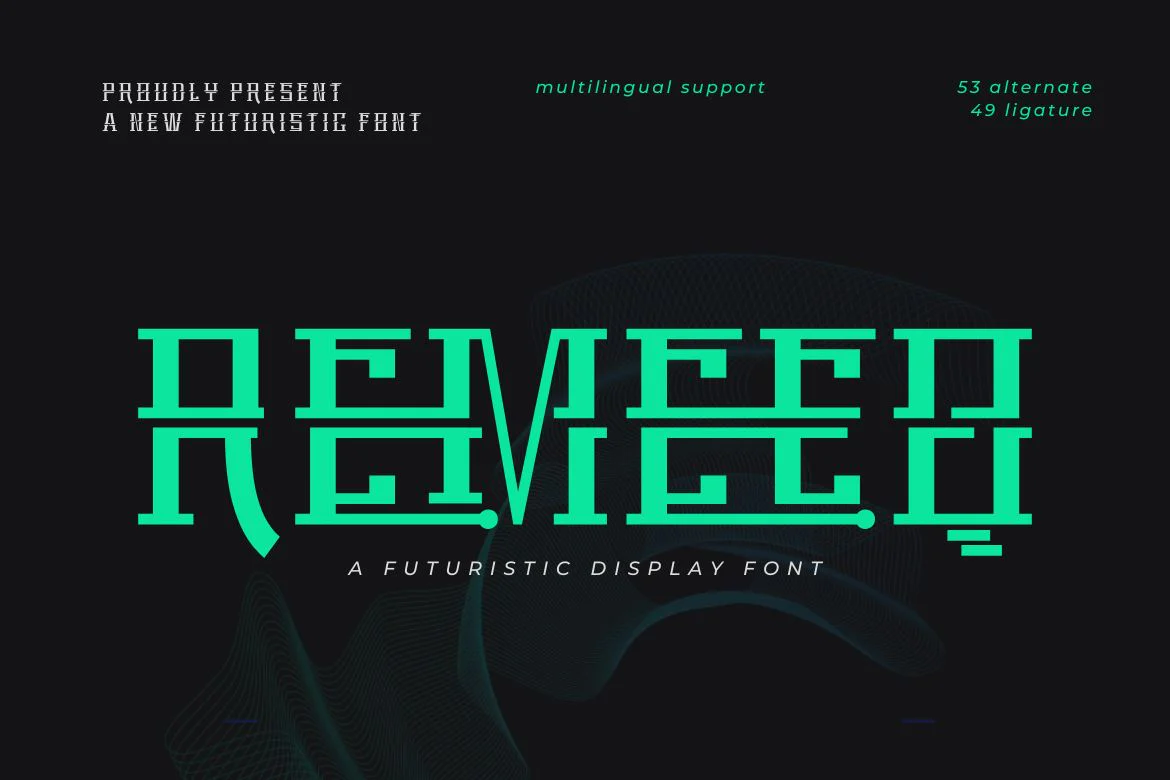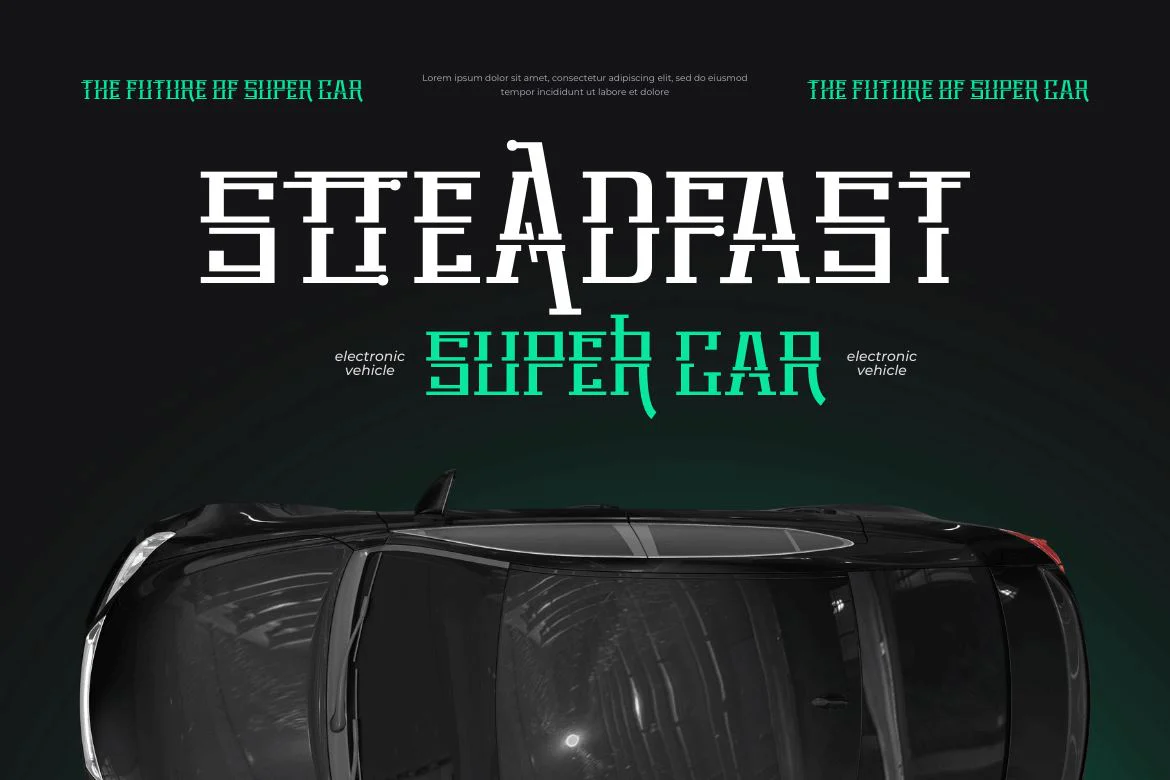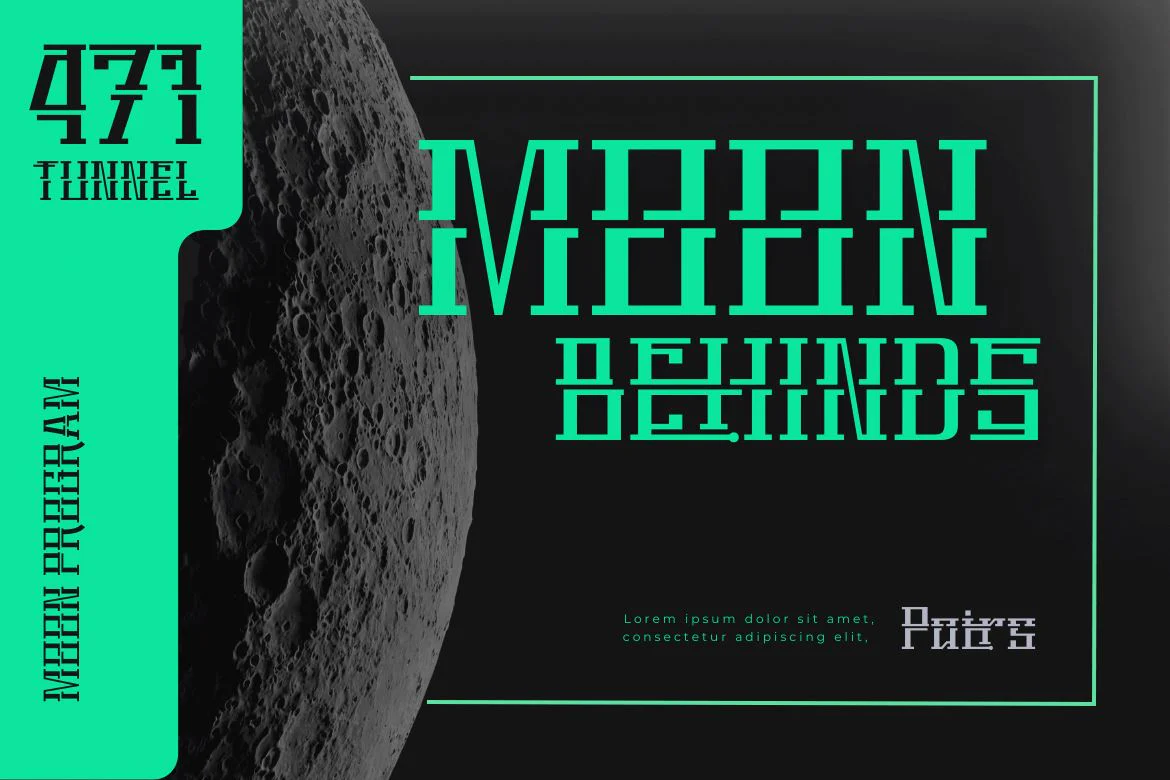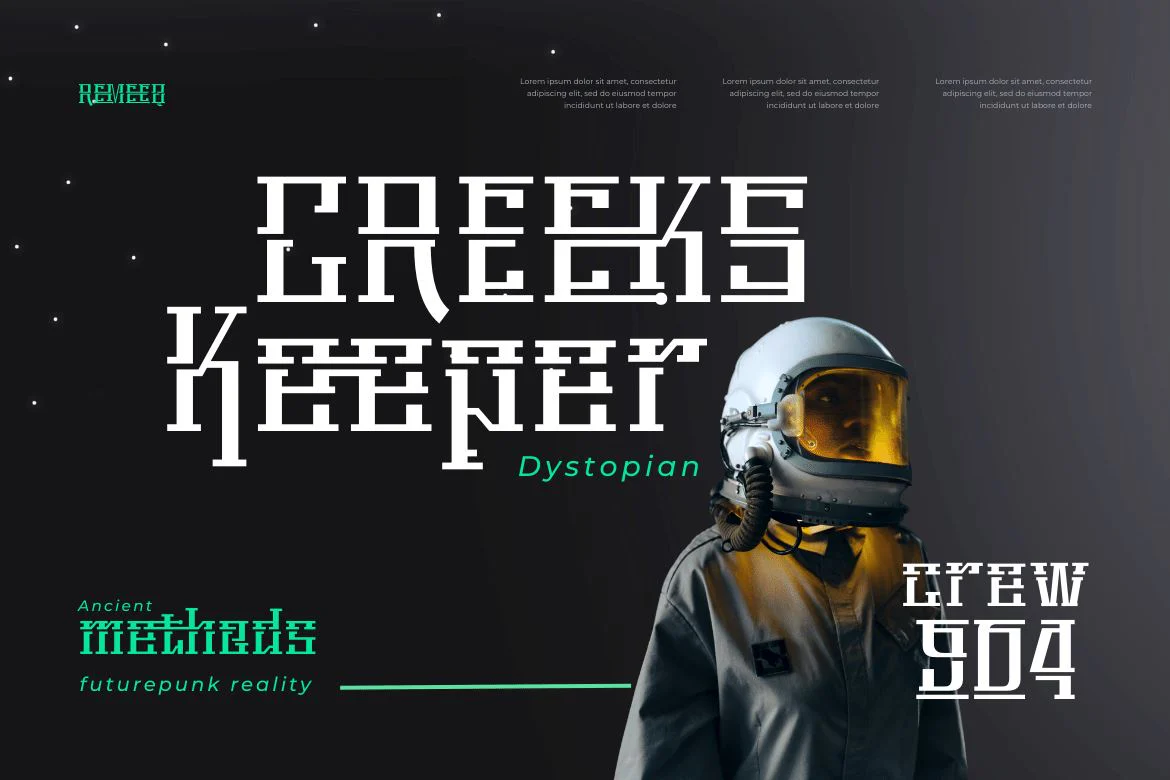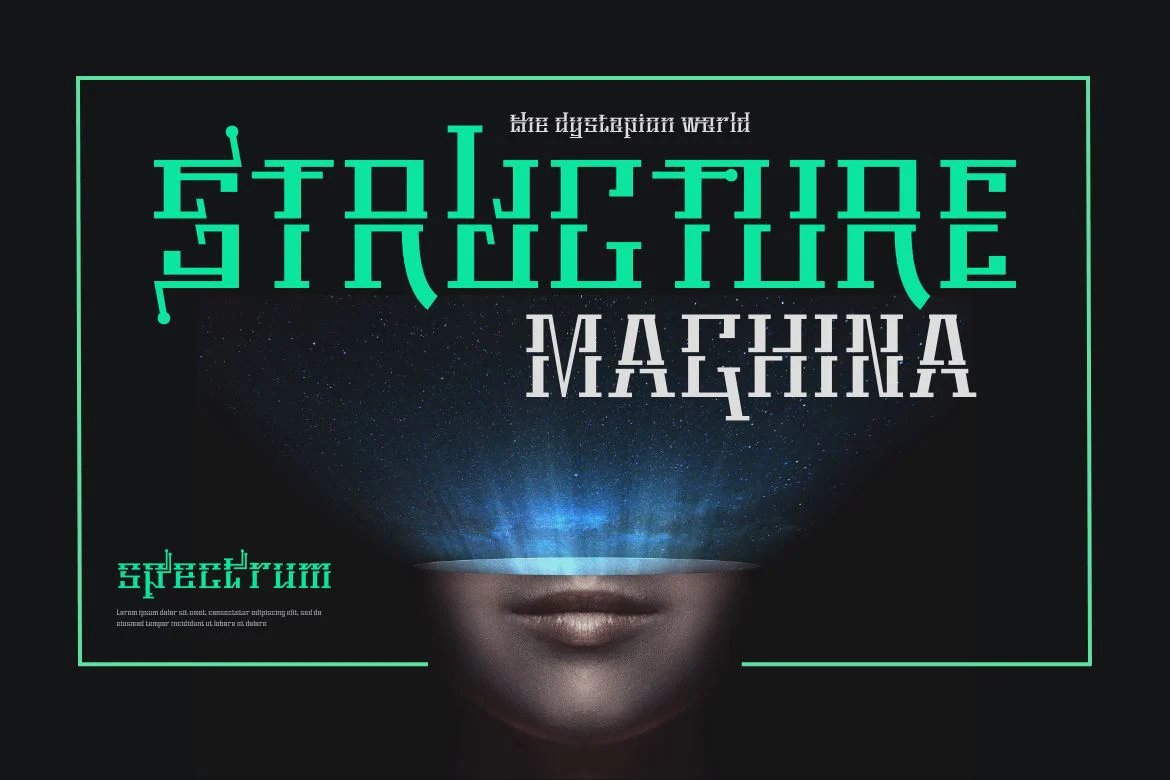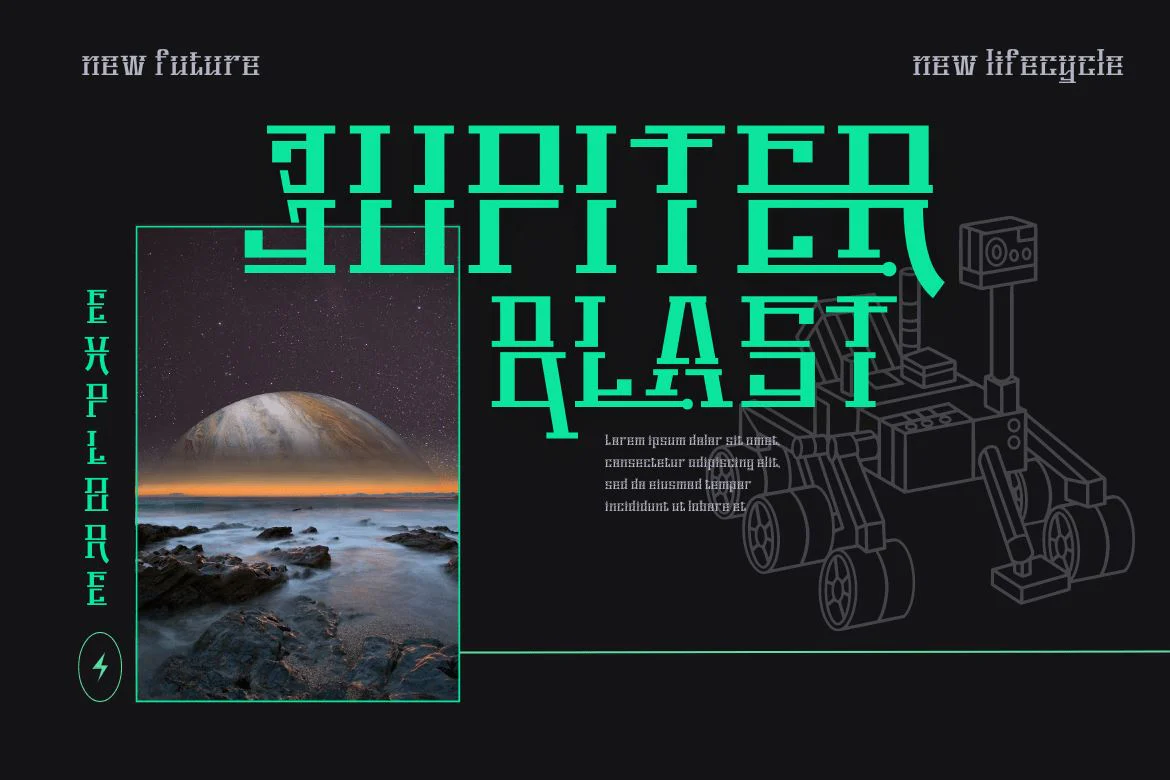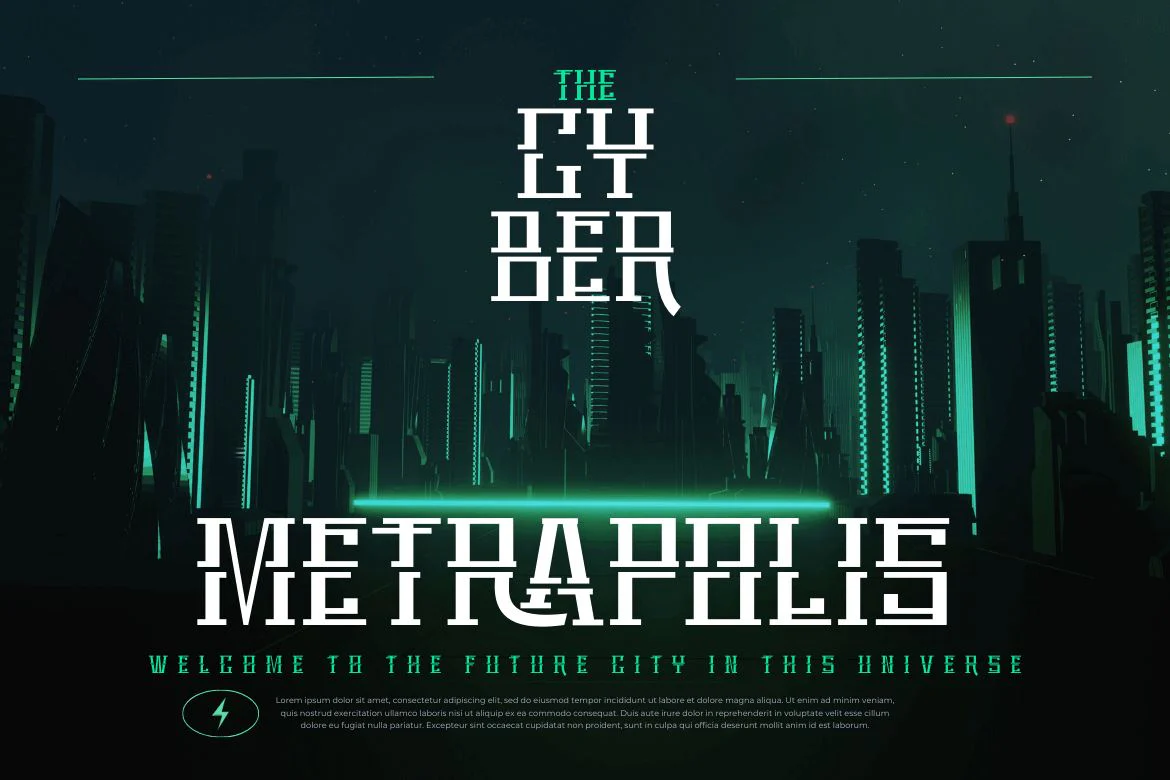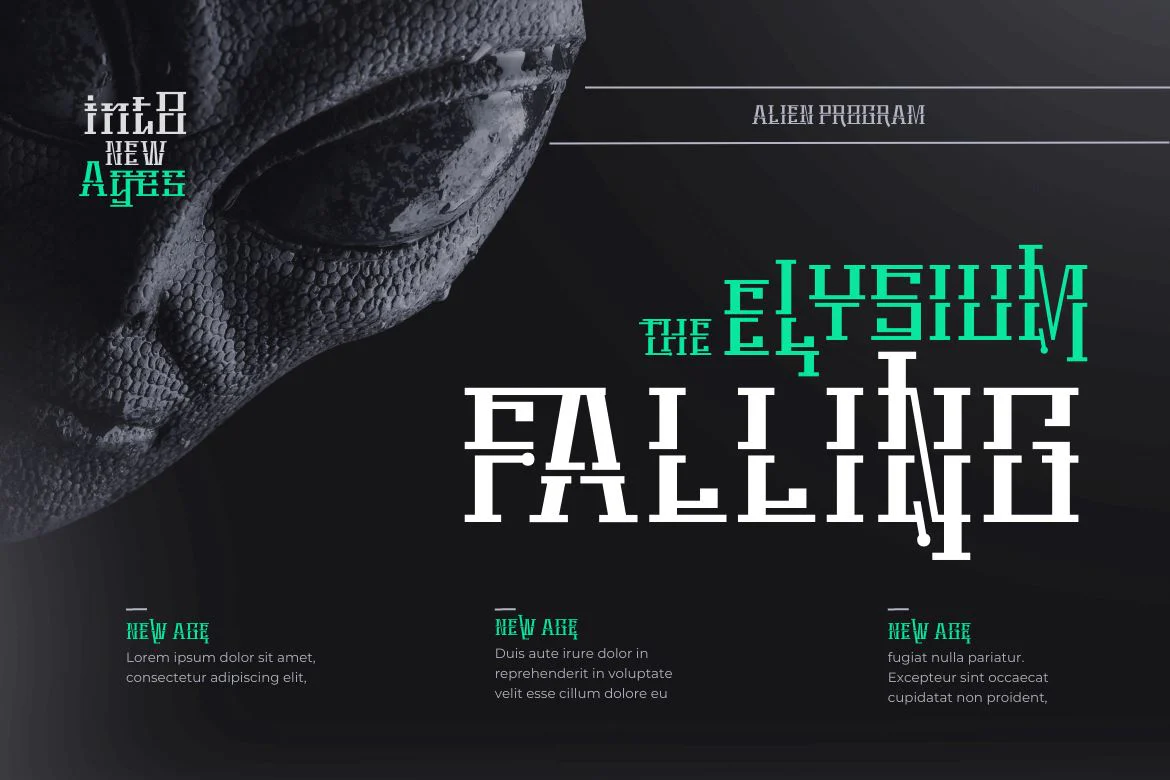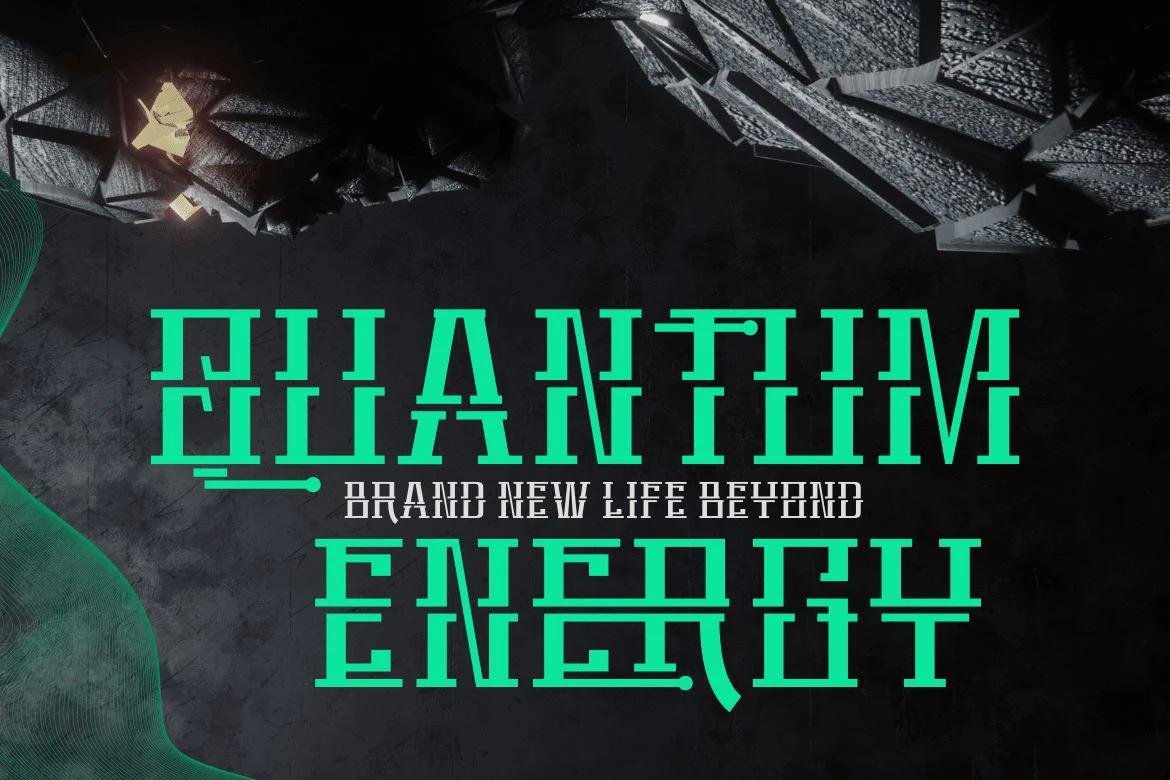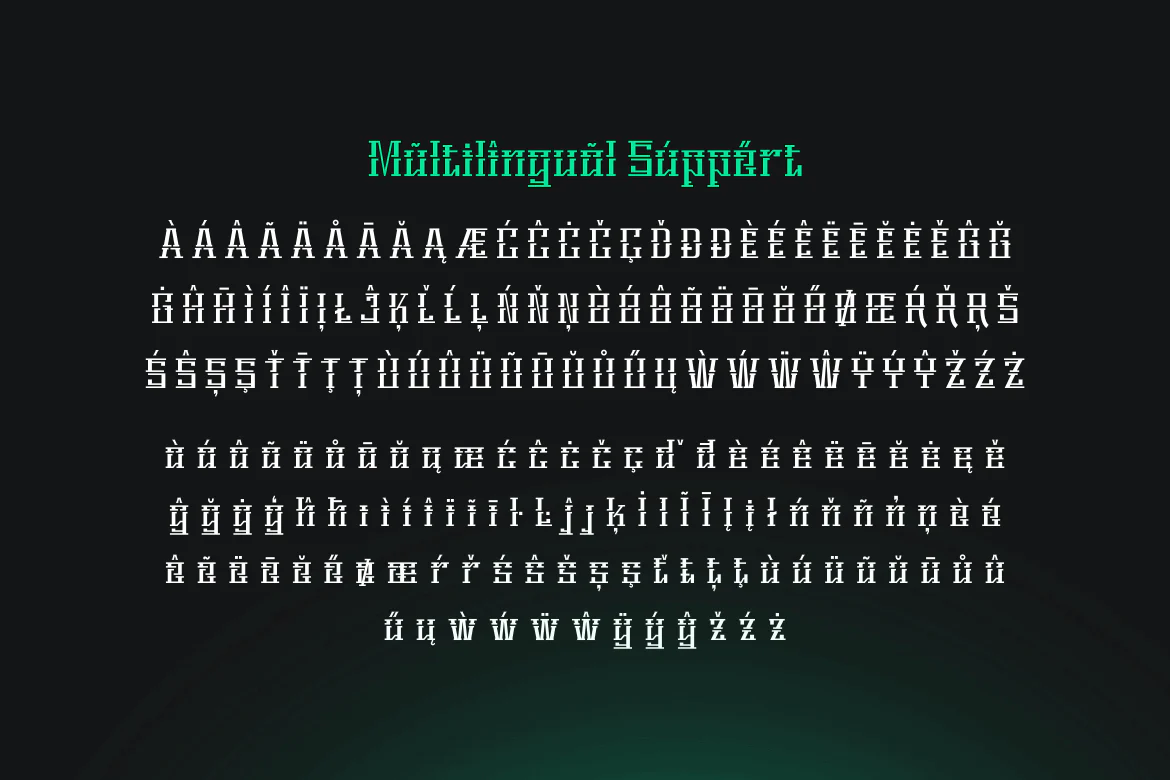
Remeeq | Futuristic Font
Introducing Remeeq, the futuristic font that will take your designs to the next level! With 53 alternate characters for uppercase letters and 49 ligatures, this font offers endless possibilities for creating unique and futuristic designs. The sleek and modern design of this font is perfect for those looking to create designs that are cutting-edge and ahead of their time.
Whether you’re designing for a sci-fi movie poster or a tech startup, Remeeq is the font that will make your designs stand out from the crowd. Plus, with multilingual support, you can use this font for projects in any language. Upgrade your design project with Remeeq and impress your audience with your futuristic and innovative designs.